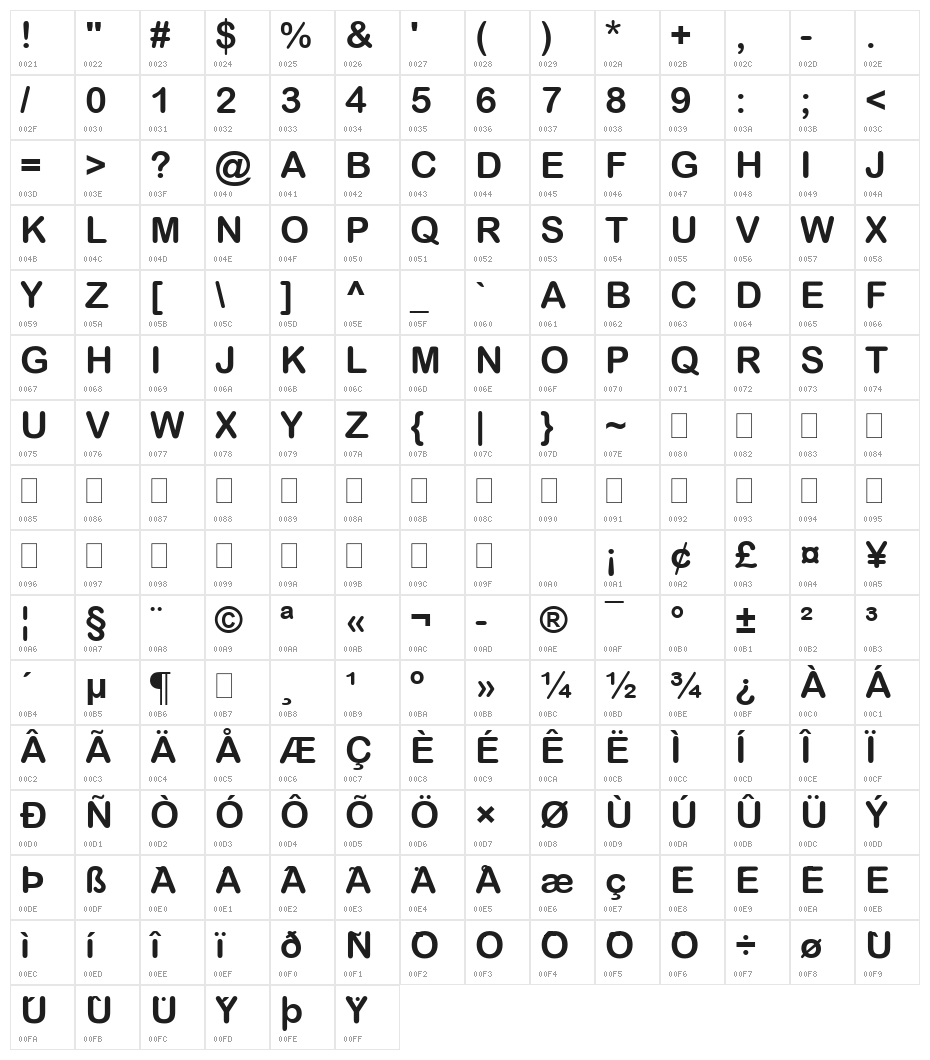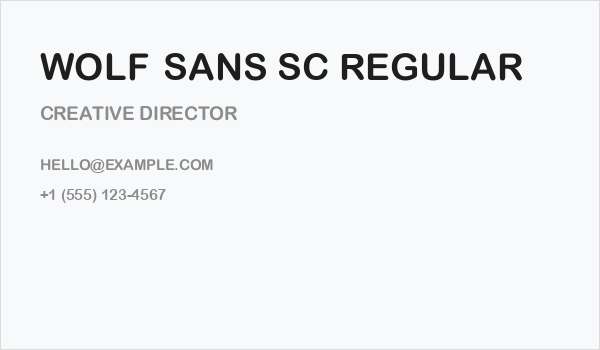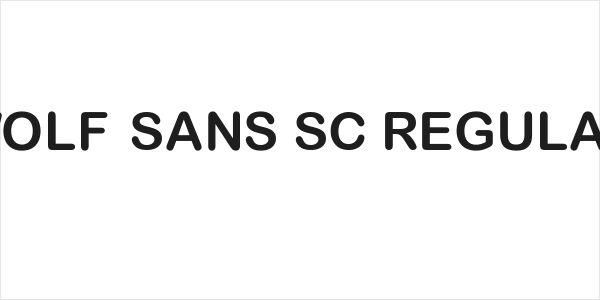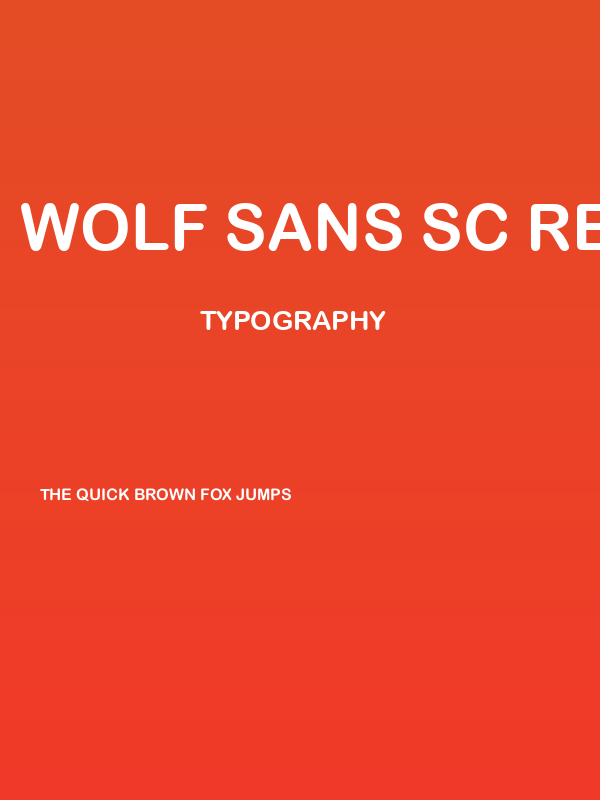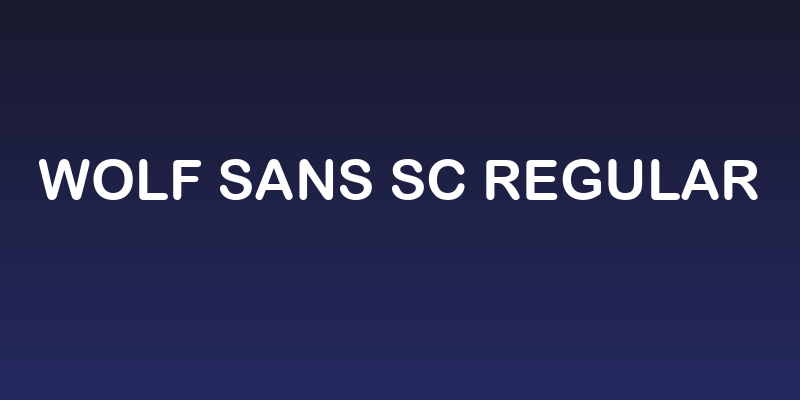
Wolf Sans SC Regular Font
Wolf Sans SC Regular Description
This font features a clean and modern sans-serif design with uniform stroke widths, providing a sleek and professional appearance. The characters are well-proportioned, with a slightly rounded finish that adds a touch of friendliness to the overall look. The uppercase and lowercase letters are distinct and easy to read, making it suitable for a variety of applications. The numerals are clear and consistent in style, ensuring readability in numerical data. Special characters are designed with the same attention to detail, maintaining the font's cohesive aesthetic. This font is versatile and can be used in both digital and print media, offering a contemporary feel that is both approachable and authoritative.